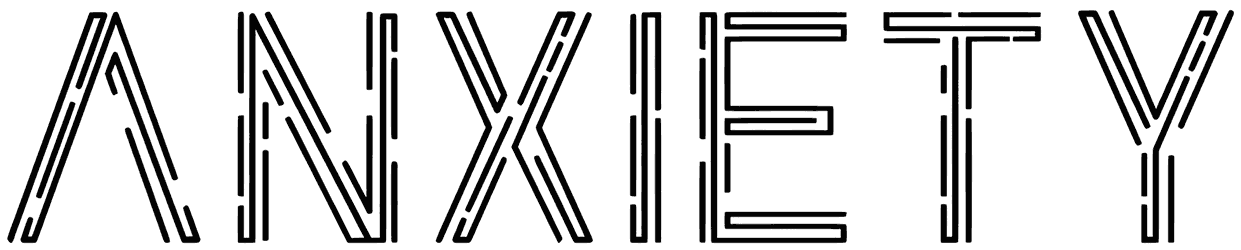
Anxiety Font
Any designer looking for a specific font to create a new tech show poster, a new astronaut animation, or a transforming computer game will stop when they see Anxiety.
Playing with lines in each character of this techno font has made connecting its letters open a path for the designer that does not need small letters to accompany the reader. This sci-fi font has created a lot of inspiration for design, which gives you many ways to bring your ideas to life.